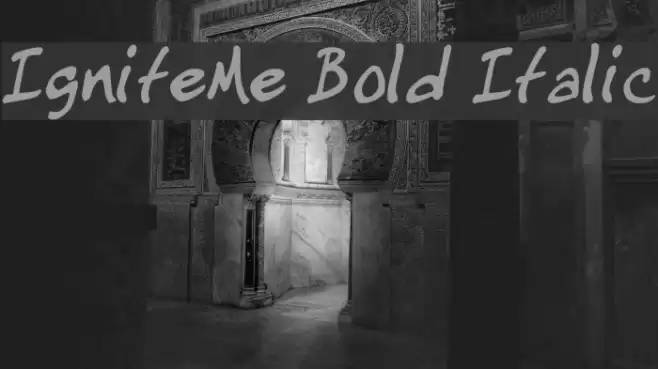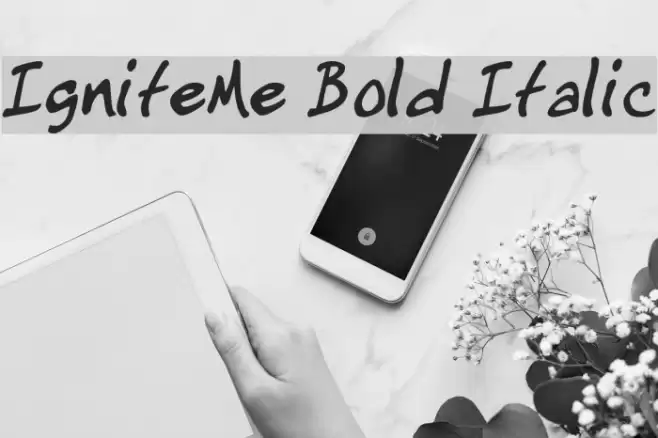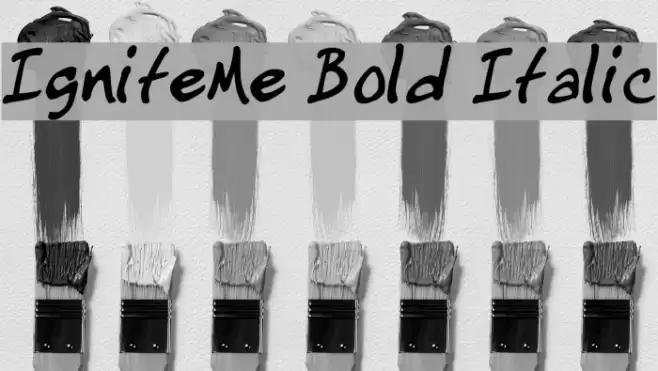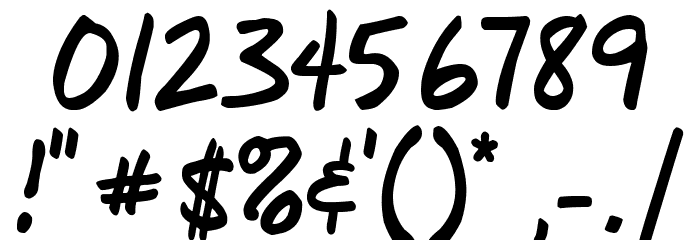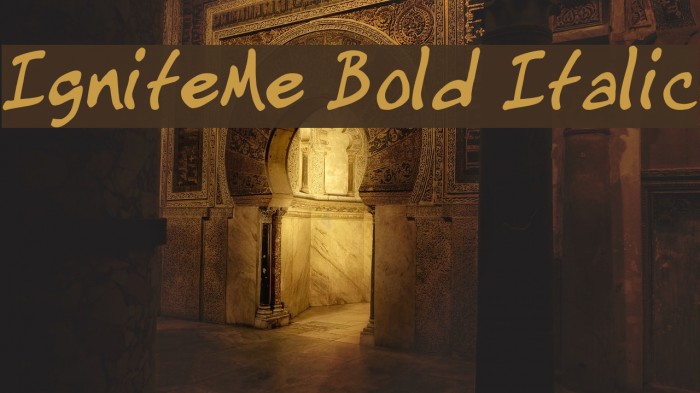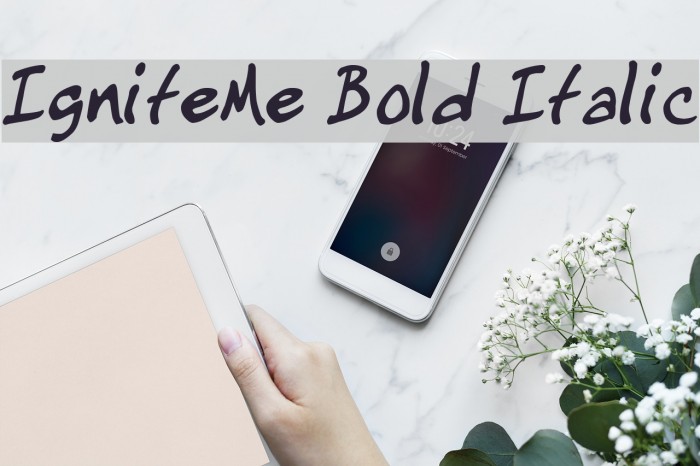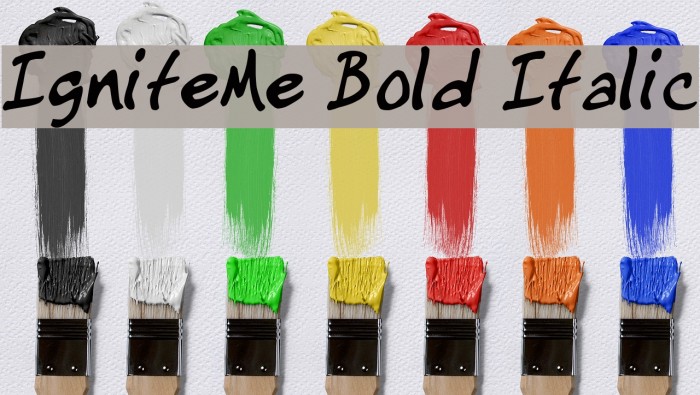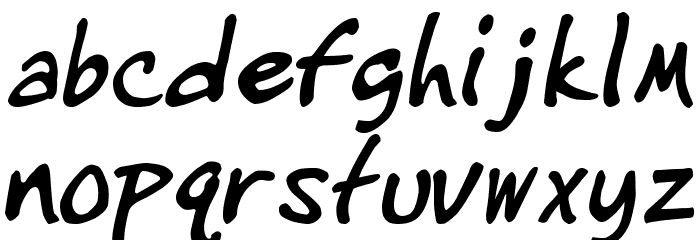
IgniteMe Bold Italic Font
IgniteMe Bold Italic Description
This font features a bold and italicized style with a handwritten, energetic flair. The uppercase letters are slightly slanted, giving a dynamic and informal appearance. The lowercase letters maintain a consistent flow, enhancing the casual and approachable feel. Numbers and special characters are crafted with the same boldness, ensuring readability and uniformity across all characters. The strokes are thick and consistent, providing a strong presence on any medium. This font is ideal for projects that require a personal touch or a lively, expressive tone.
A bold, italic, handwritten font with a dynamic and energetic style from Handwritten fonts.
- Proposed Projects: Ideal for branding, posters, social media graphics, and any project needing a lively, personal touch.